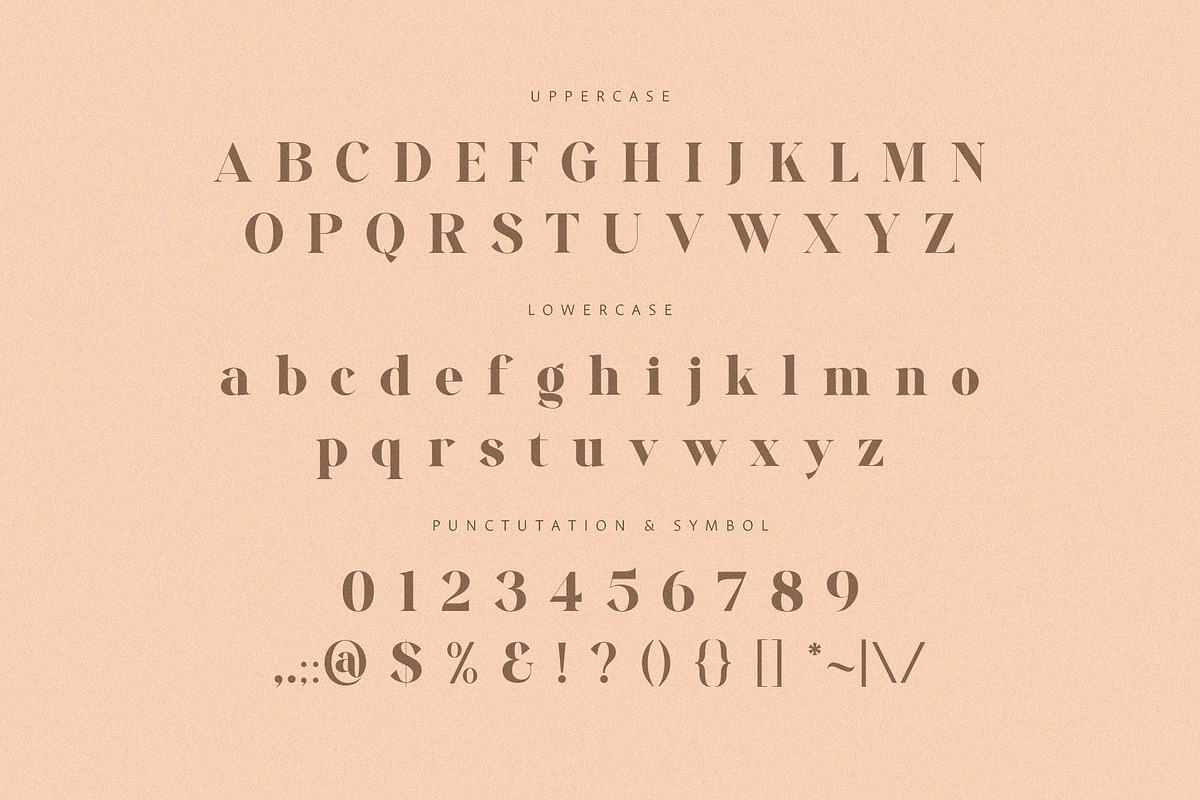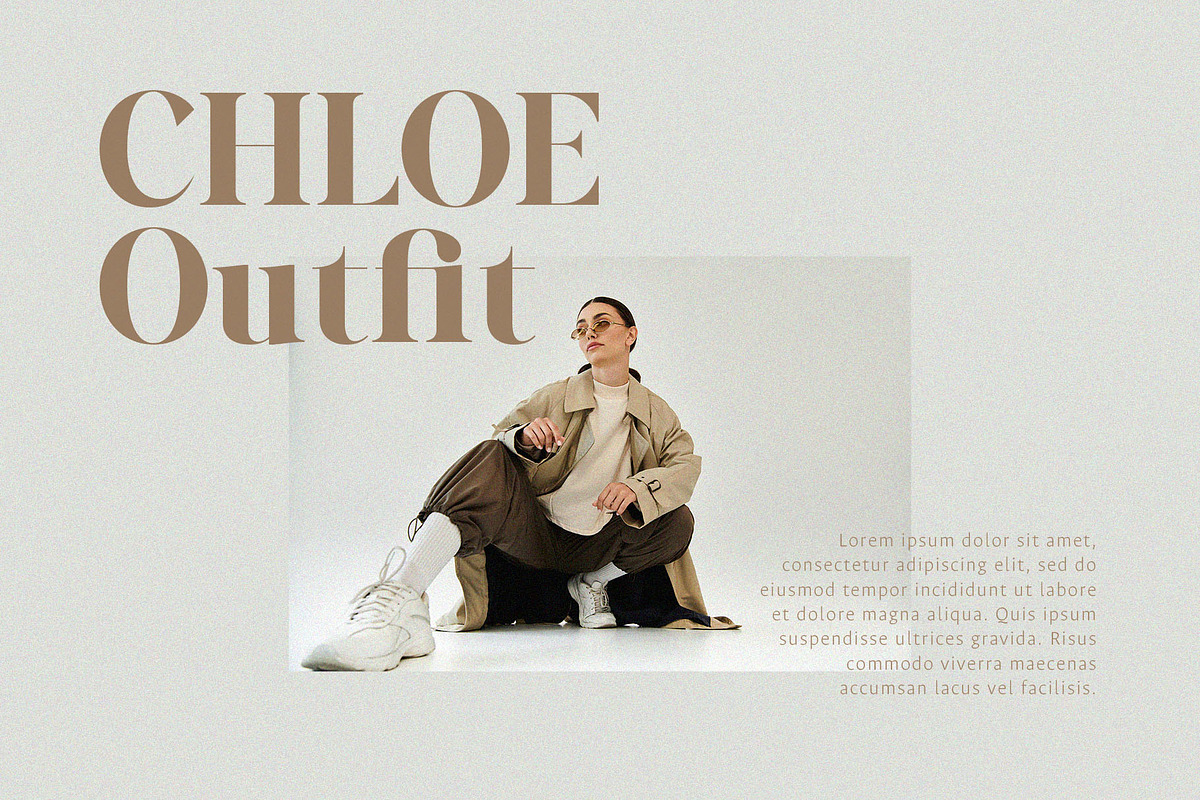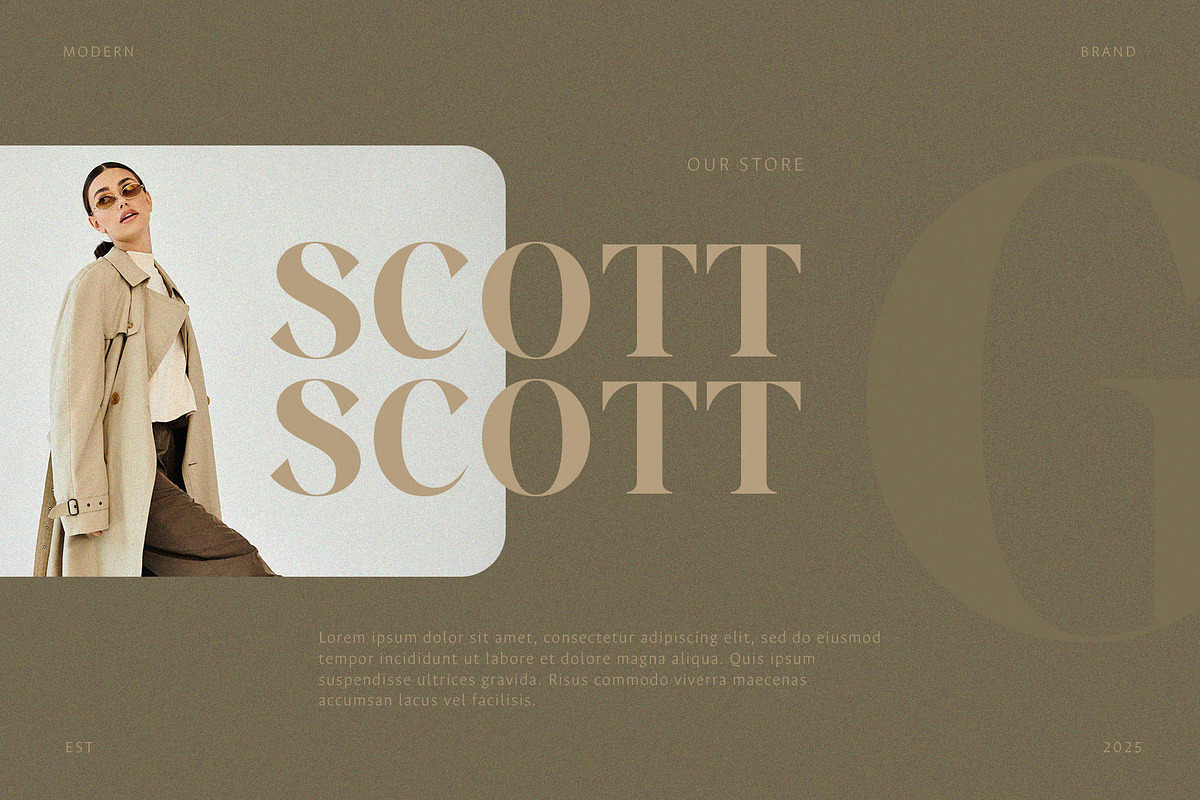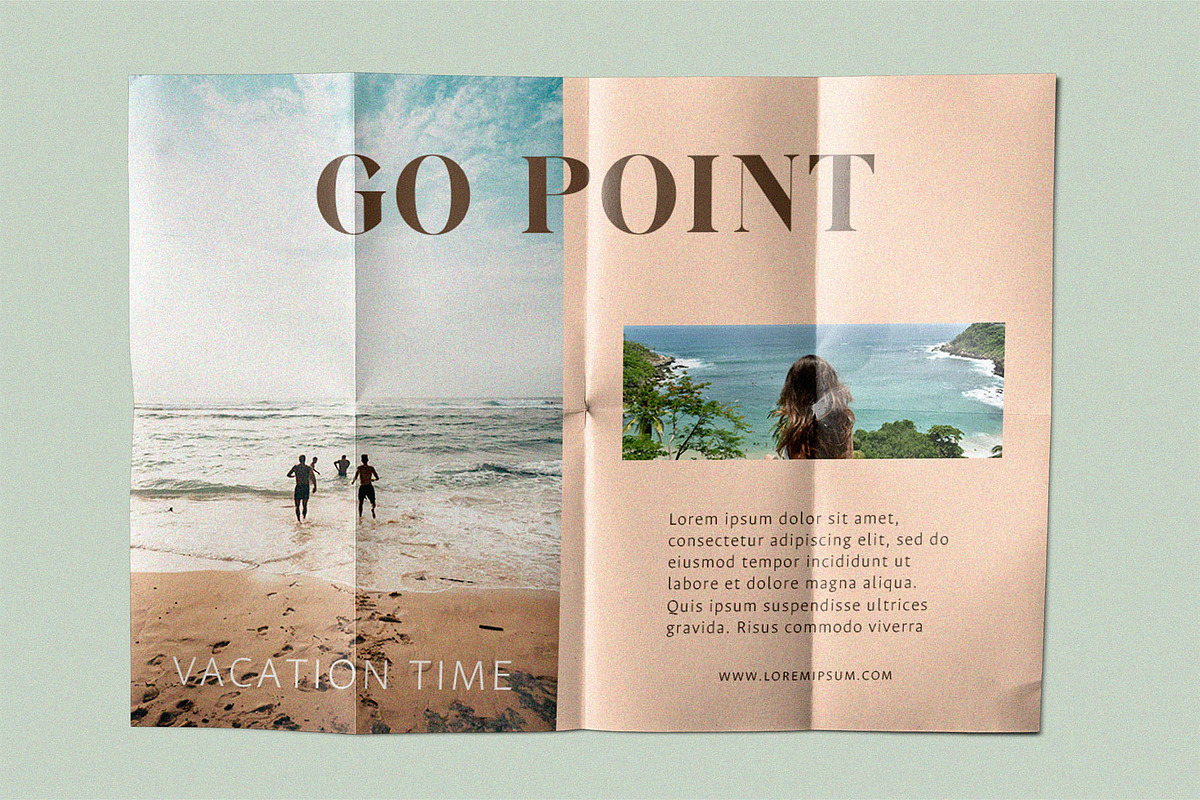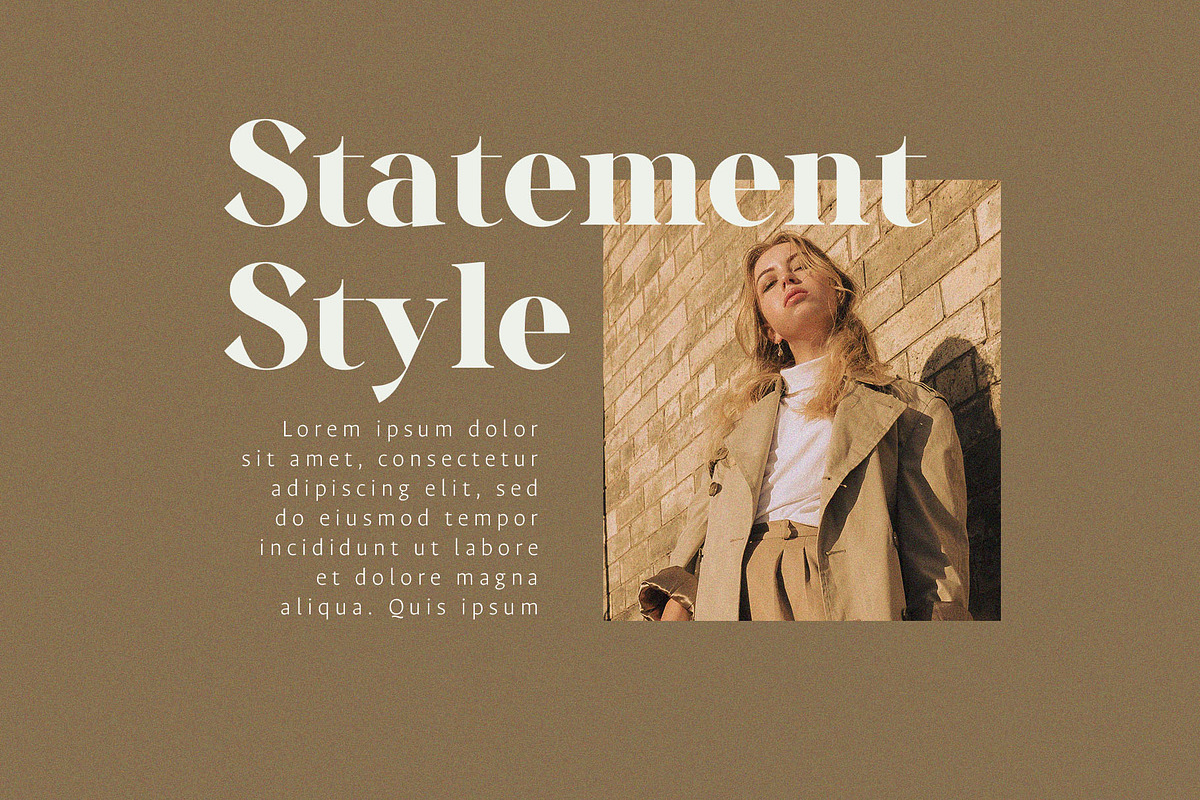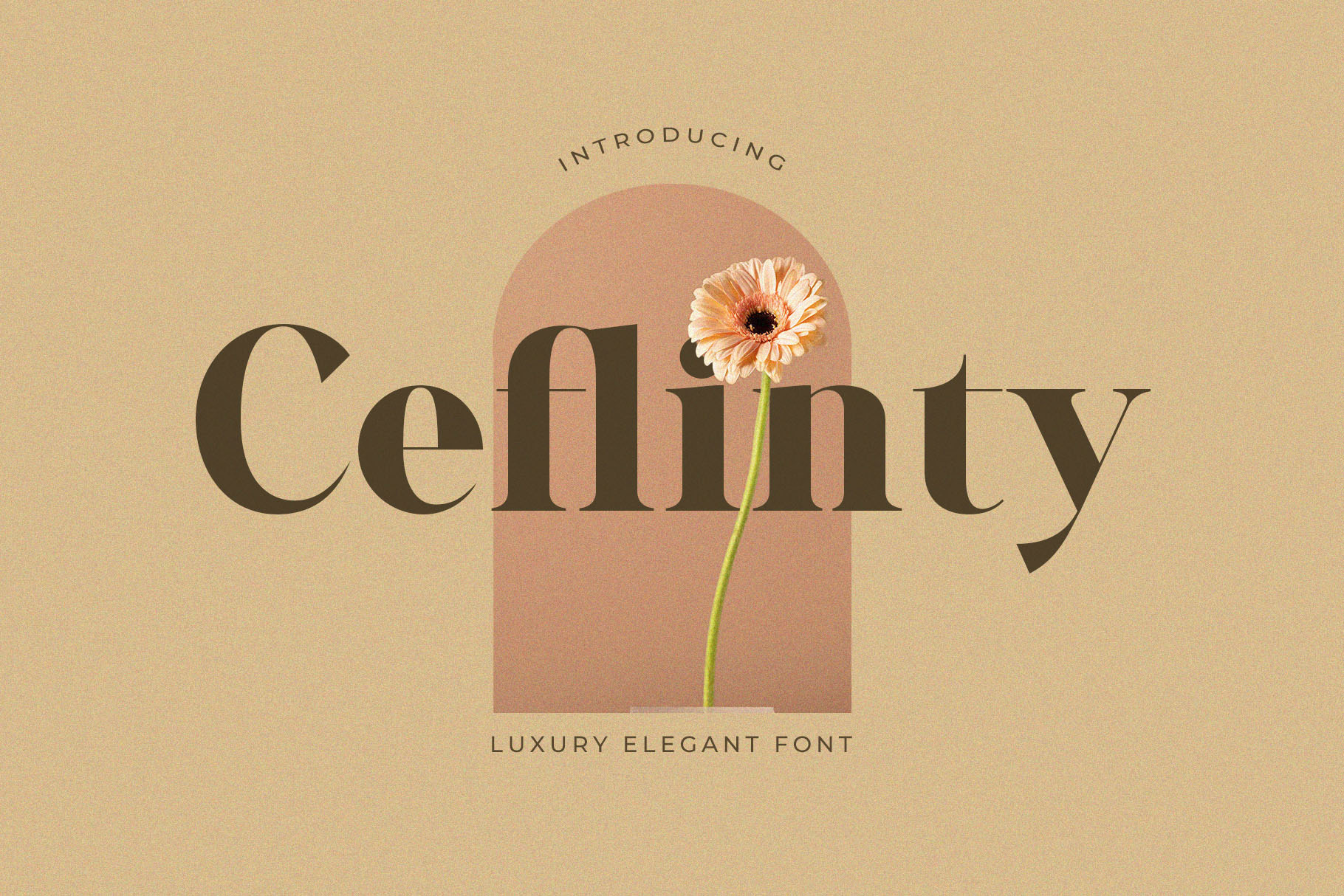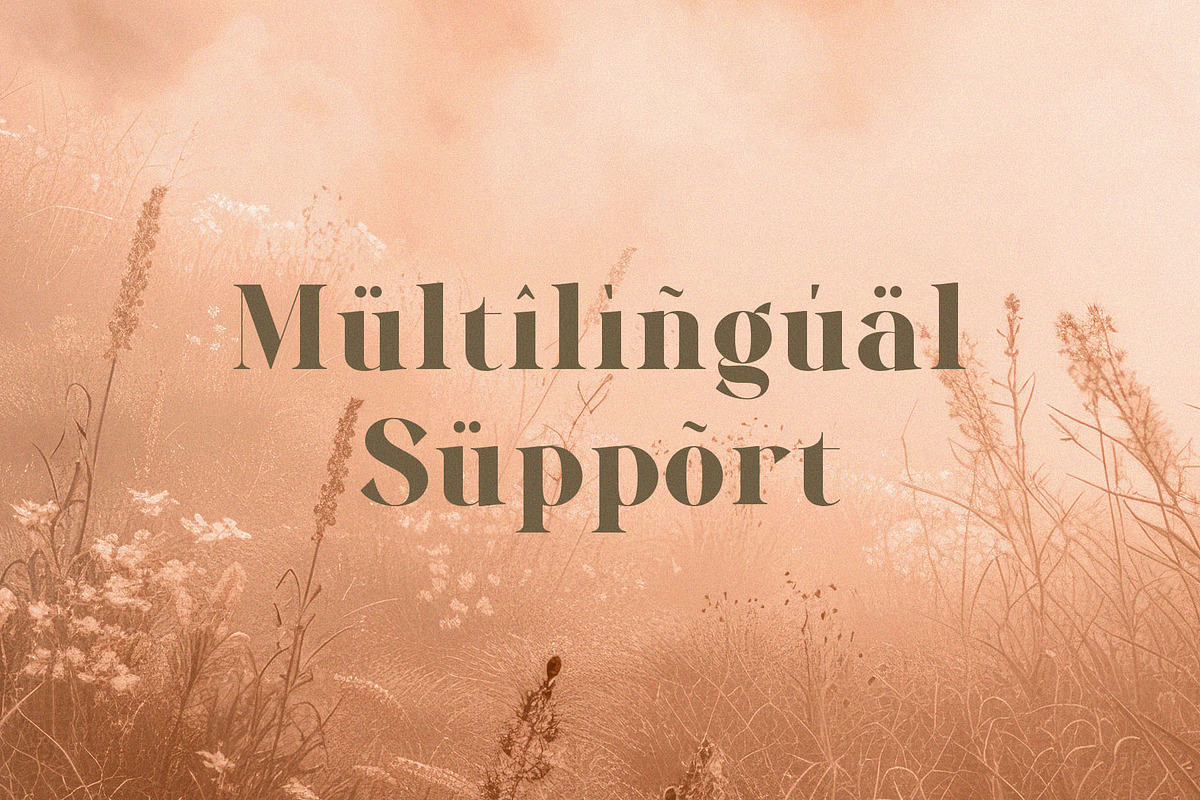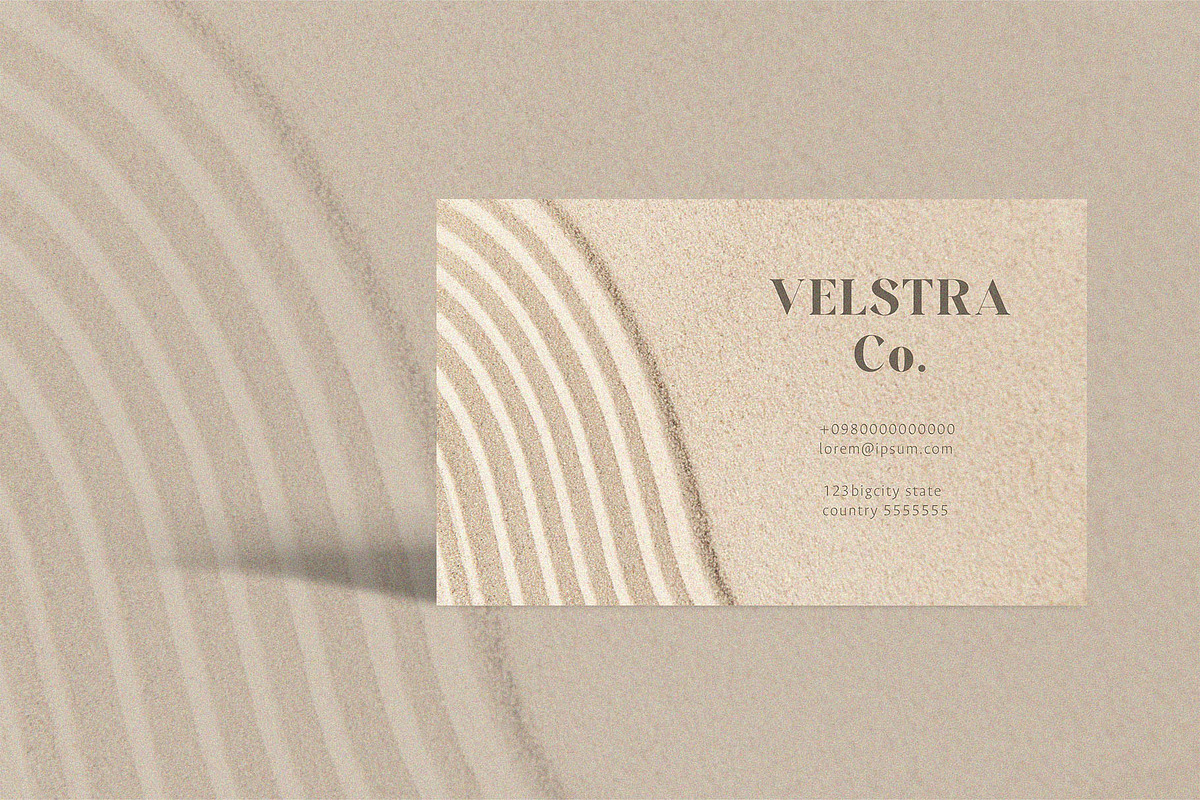
Ceflinty – Luxury Elegant Serif Font
Introducing Ceflinty Elegant Serif Font. Ceflinty is a modern and classy typeface, best used as a display for headings, logos, branding, magazines, product packaging and invitations. Ceflinty come with clean lines and smooth curves give any project an extra touch of class.